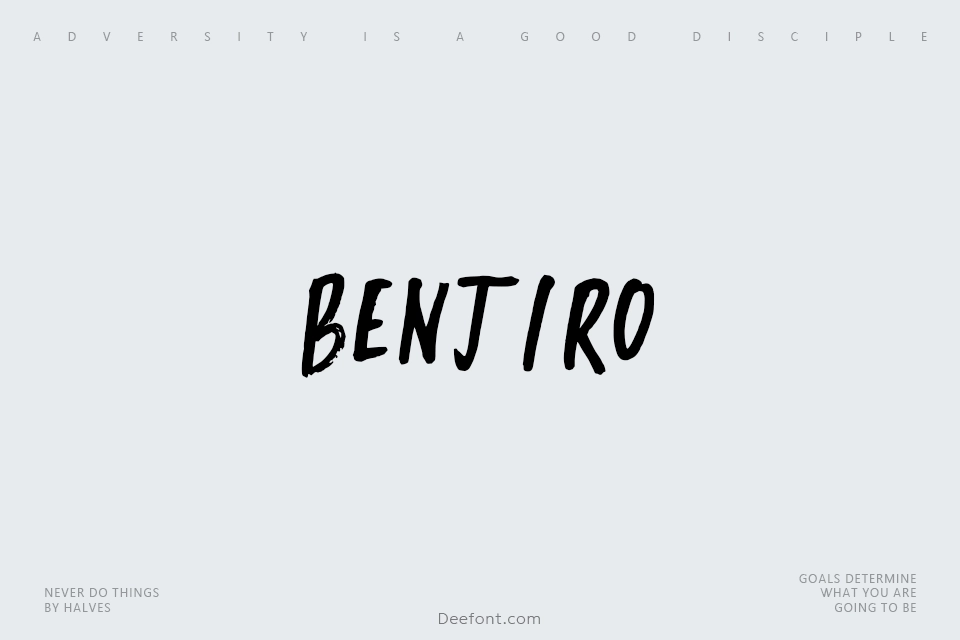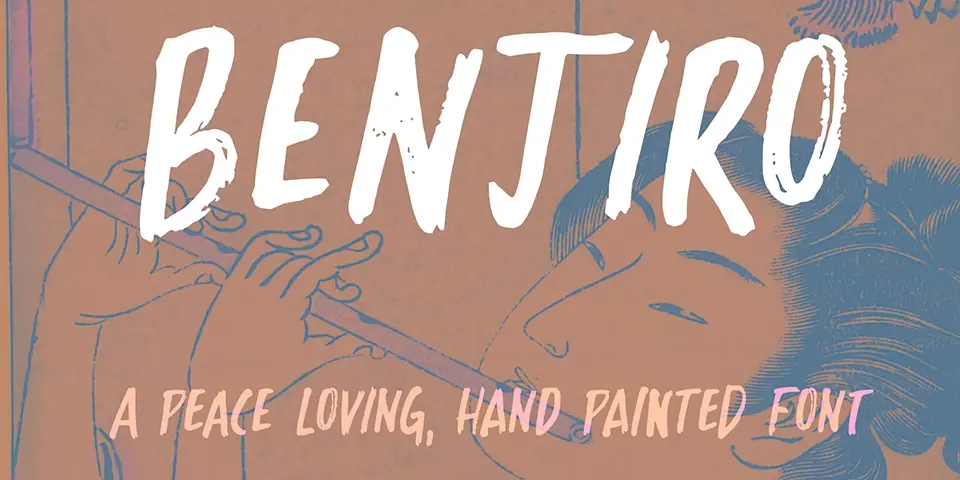
Benjiro Font
Benjiro is a distinctive brush typeface created with ink and a broken bamboo satay skewer, resulting in a rough, expressive all-caps design that exudes handcrafted authenticity and artistic character. Each letterform showcases unique variations from the unconventional creation process, making no two characters identical. The font features extensive language support with multilingual capabilities and includes a comprehensive set of lowercase alternates for creative flexibility. Perfect for branding materials, trendy posters, dynamic website headings, and display applications, Benjiro brings vibrant energy and creative individuality to any visual communication project.